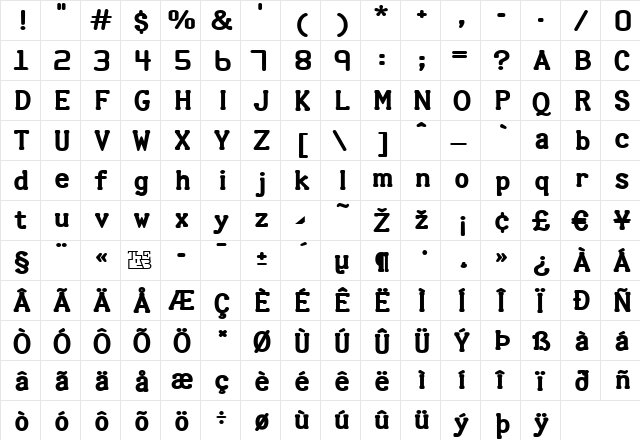
Halter Regular
Design Context for Halter Typeface
Halter offers clean, dependable letterforms without strong stylistic allegiance, making it a practical choice for designers who need flexibility.
Pro Tip: Pair Halter with a font of contrasting weight or personality to build a more expressive typographic hierarchy.